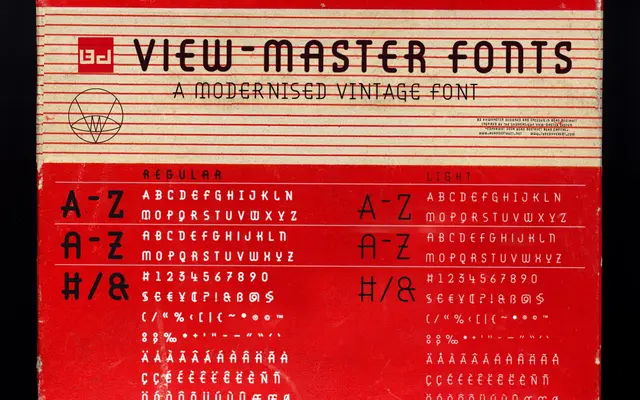
BD Viewmaster
Type Different · 2008
An uppercase display typeface drawn from the lettering of the iconic View-Master stereoscope toy, offered in three styles including a neon variant.
Modelled on the lettering found on View-Master products, this is an uppercase-only Latin family released in 2008 in Light, Regular and Neon styles. The neon cut gives the design a glowing, illuminated quality suited to retro-themed signage or packaging. Language support covers a broad range of Western European Latin scripts.
An uppercase-only display typeface inspired by vintage View-Master product lettering, with a decorative neon variant that places it firmly in the display category with a retro aesthetic.